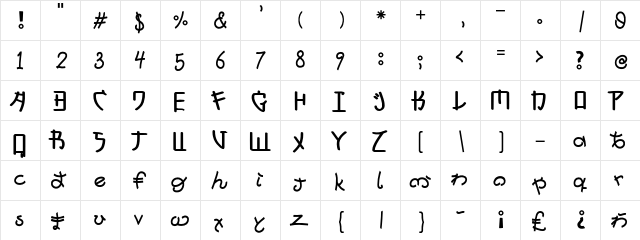
Hirakatana Regular
Design Context for Hirakatana Typeface
Hirakatana is a composed and adaptable typeface that performs quietly and consistently across a wide range of design contexts.